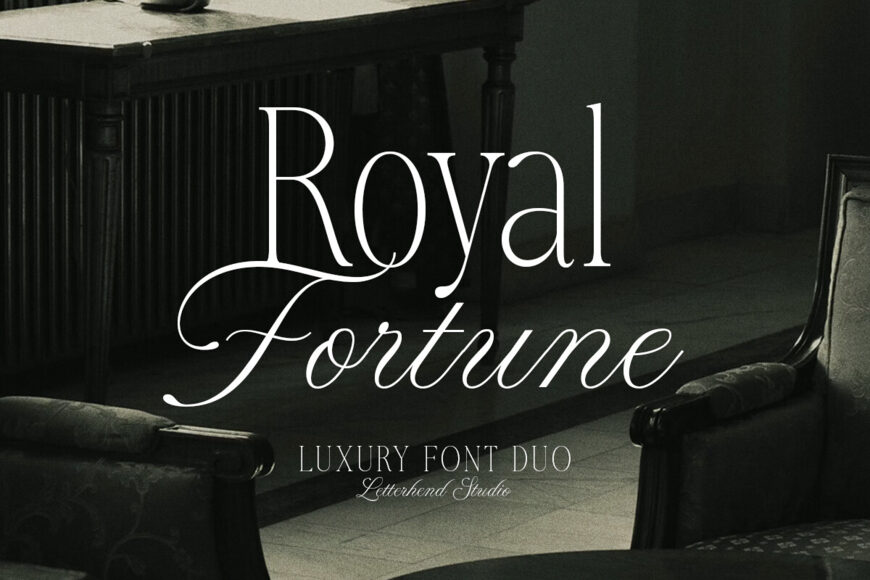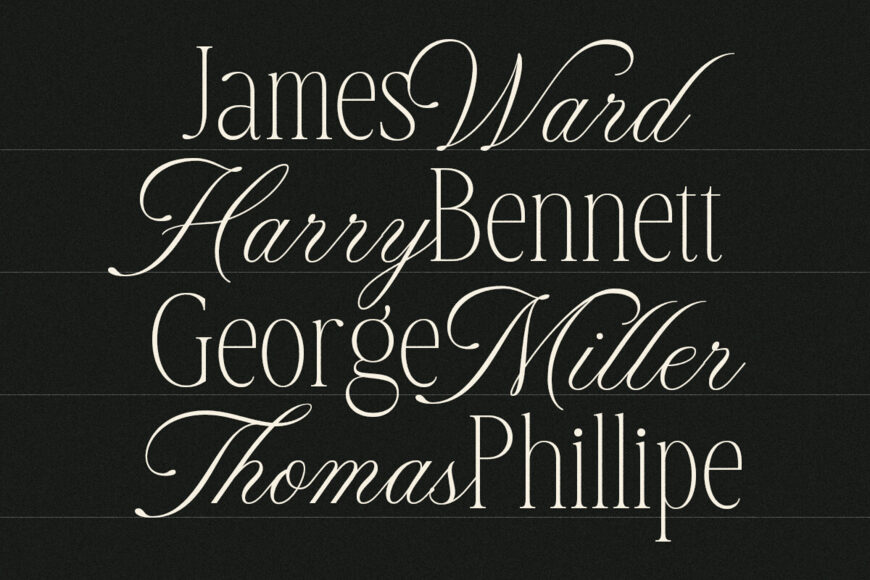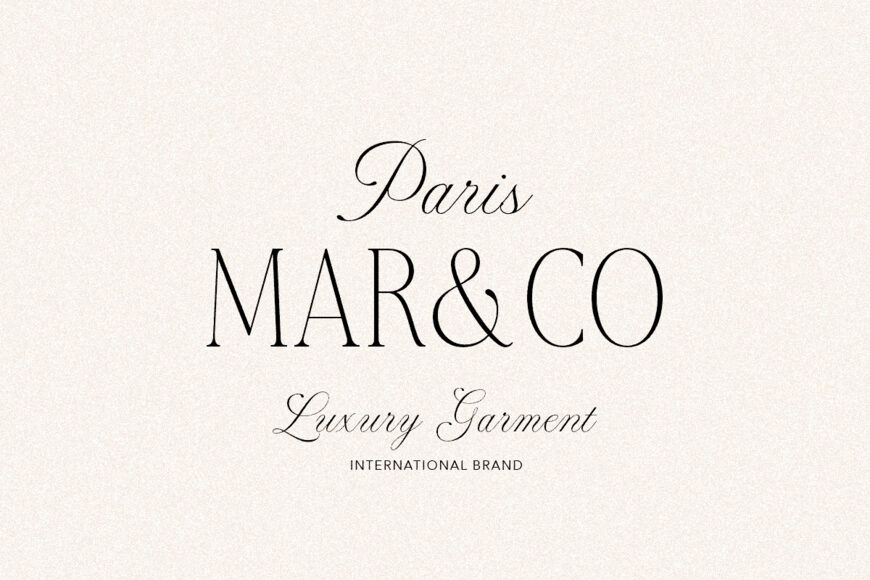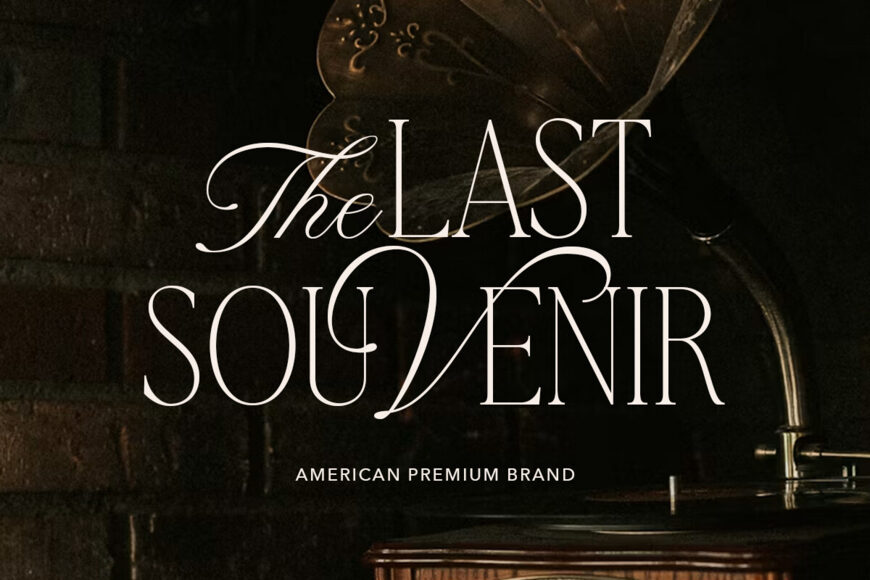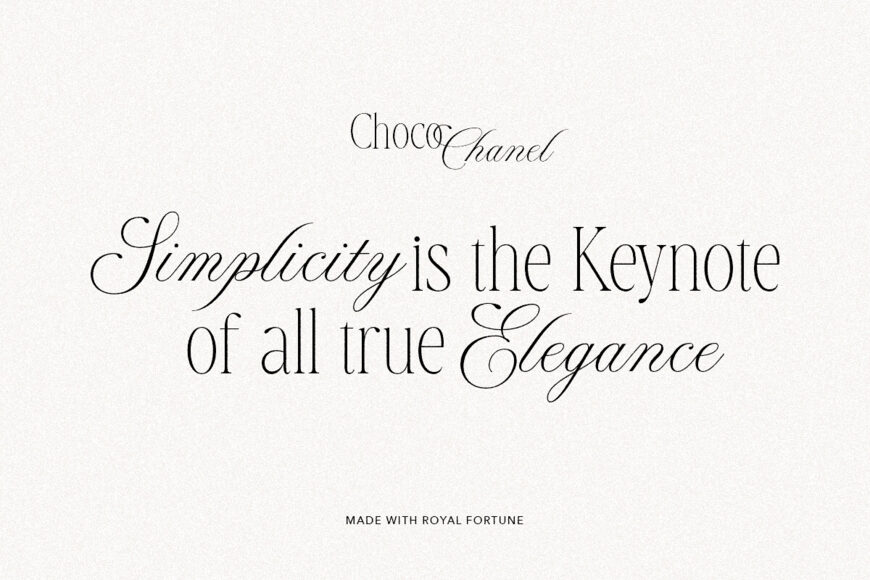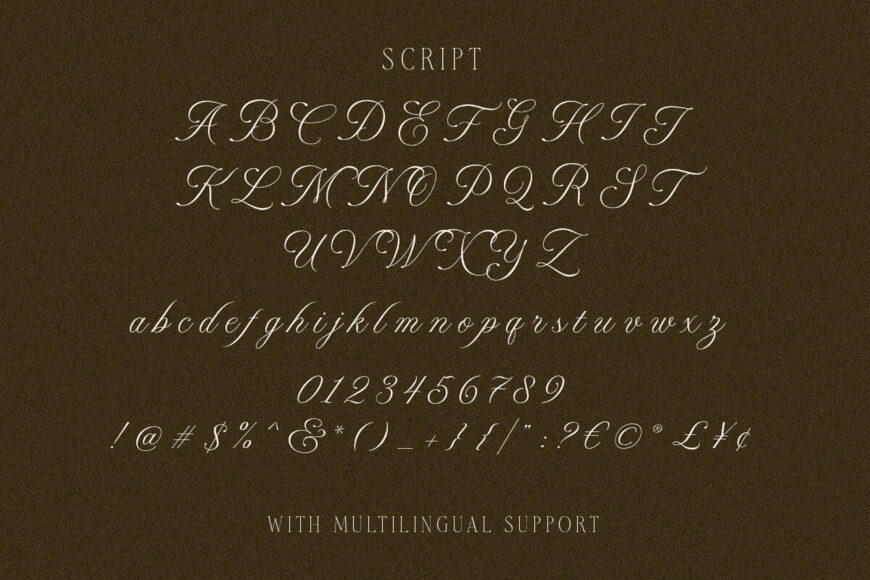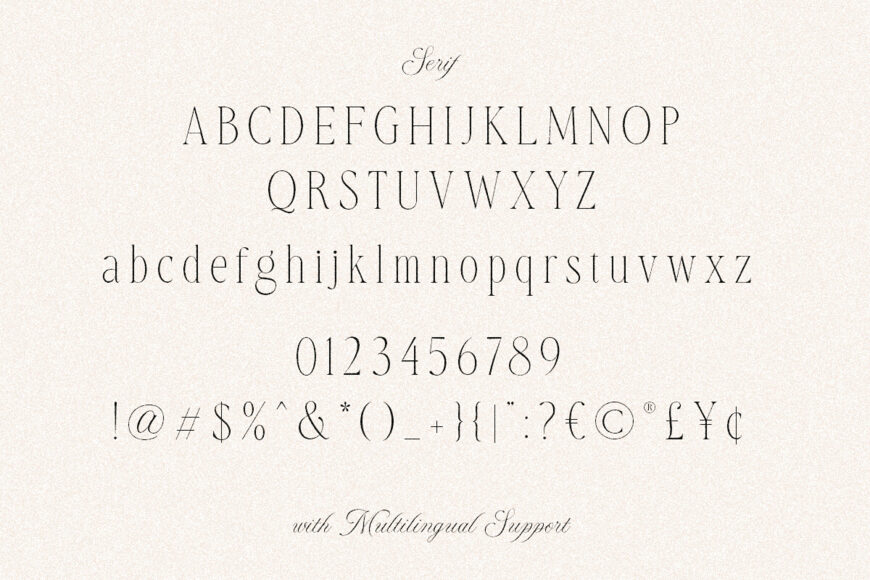
Royal Fortune pairs refined high-contrast lettering with graceful calligraphic flourishes, creating a sophisticated duo with an unmistakably regal mood.
The elegant serif brings structure, poise, and an editorial feel, while the flowing script adds romance, movement, and a touch of old-world glamour. Together, they recall luxury invitations, private club stationery, heritage branding, fashion editorials, and beautifully composed names on elegant menus.